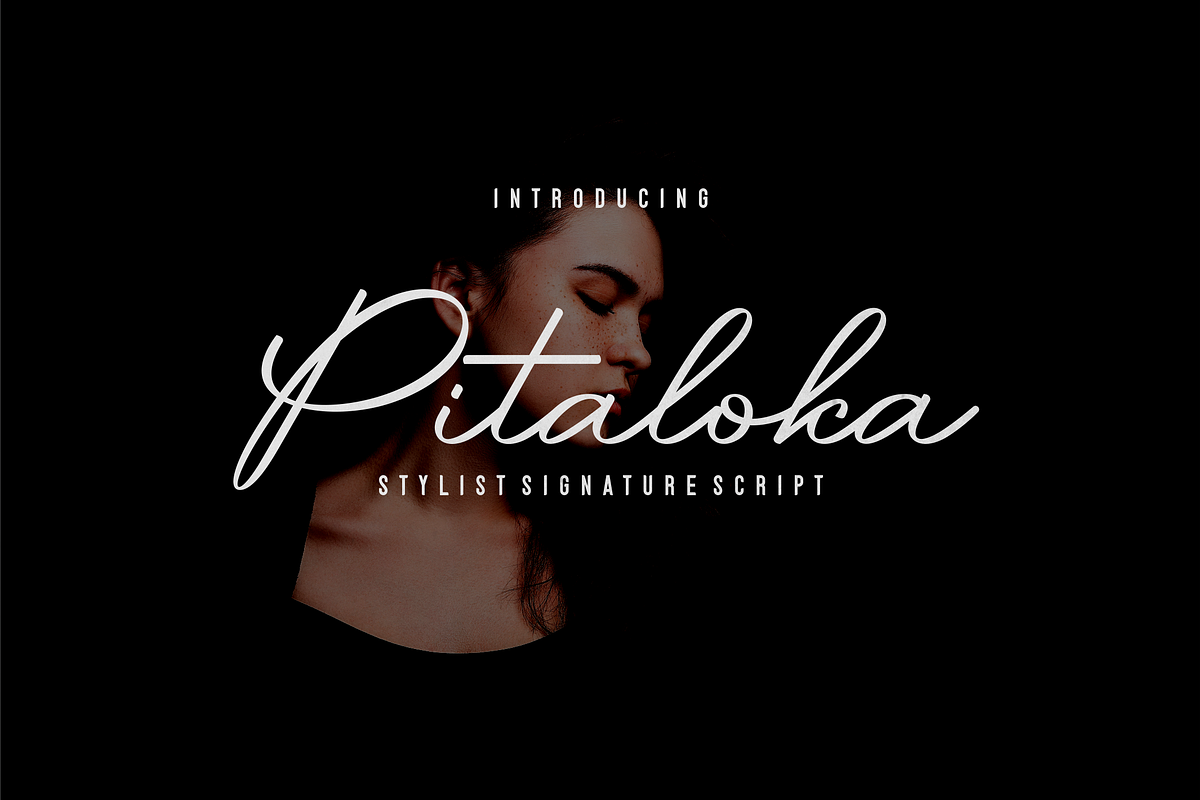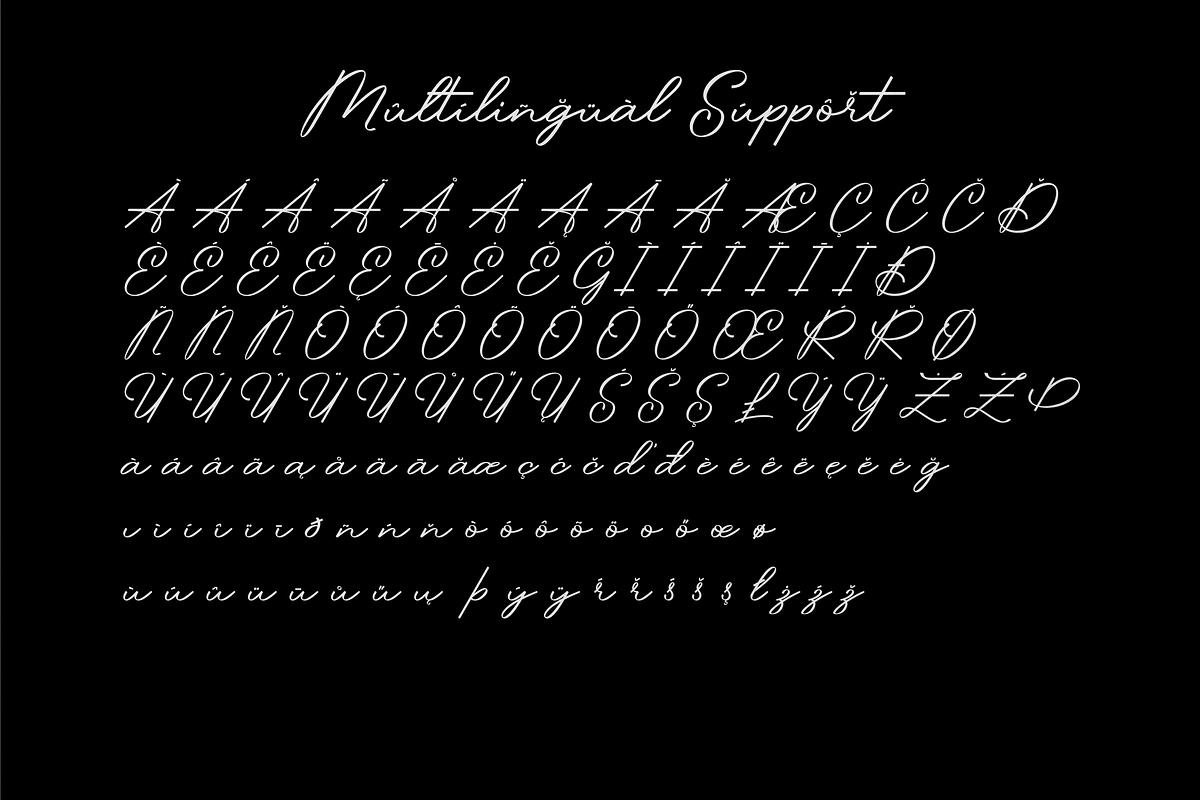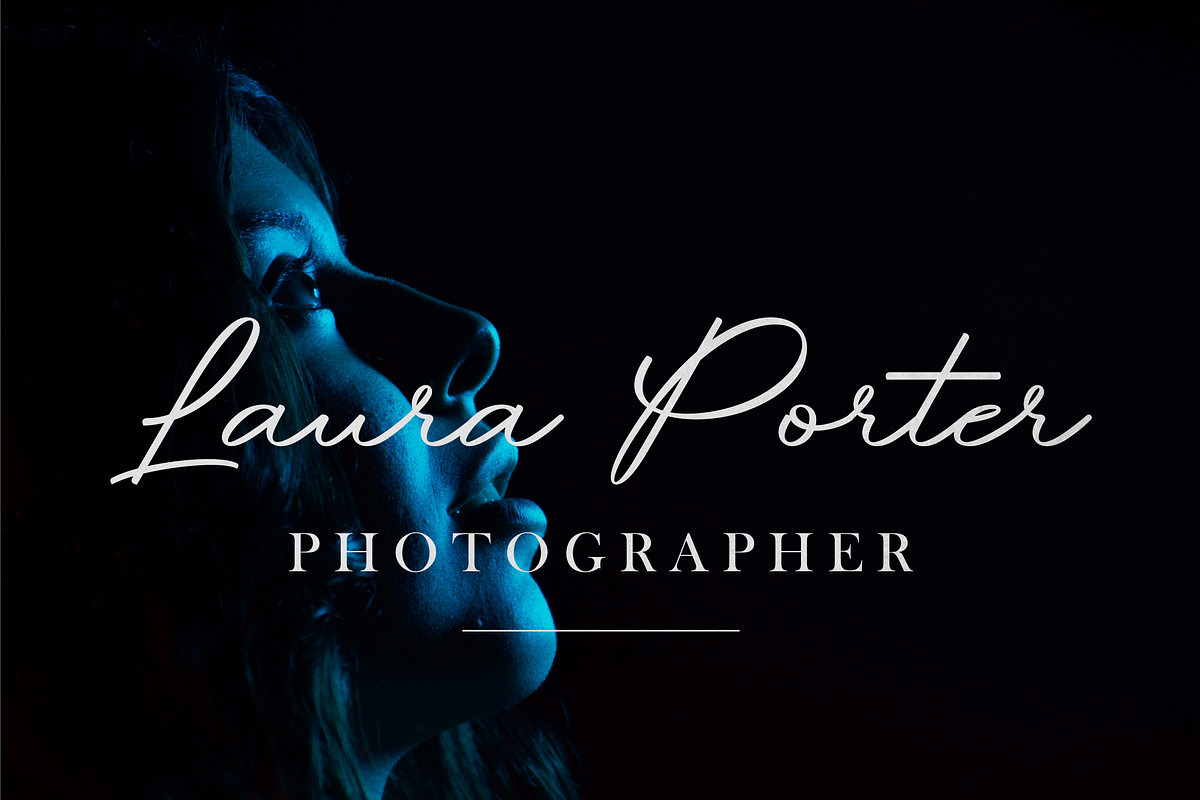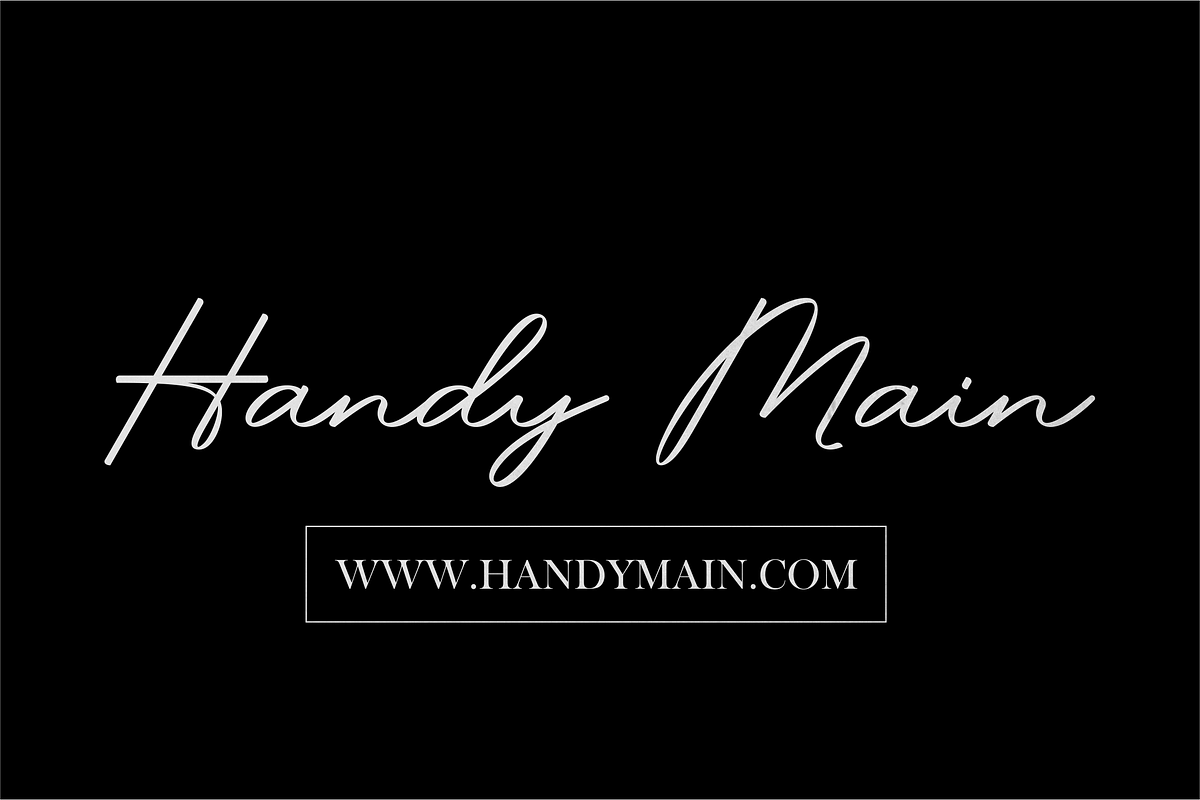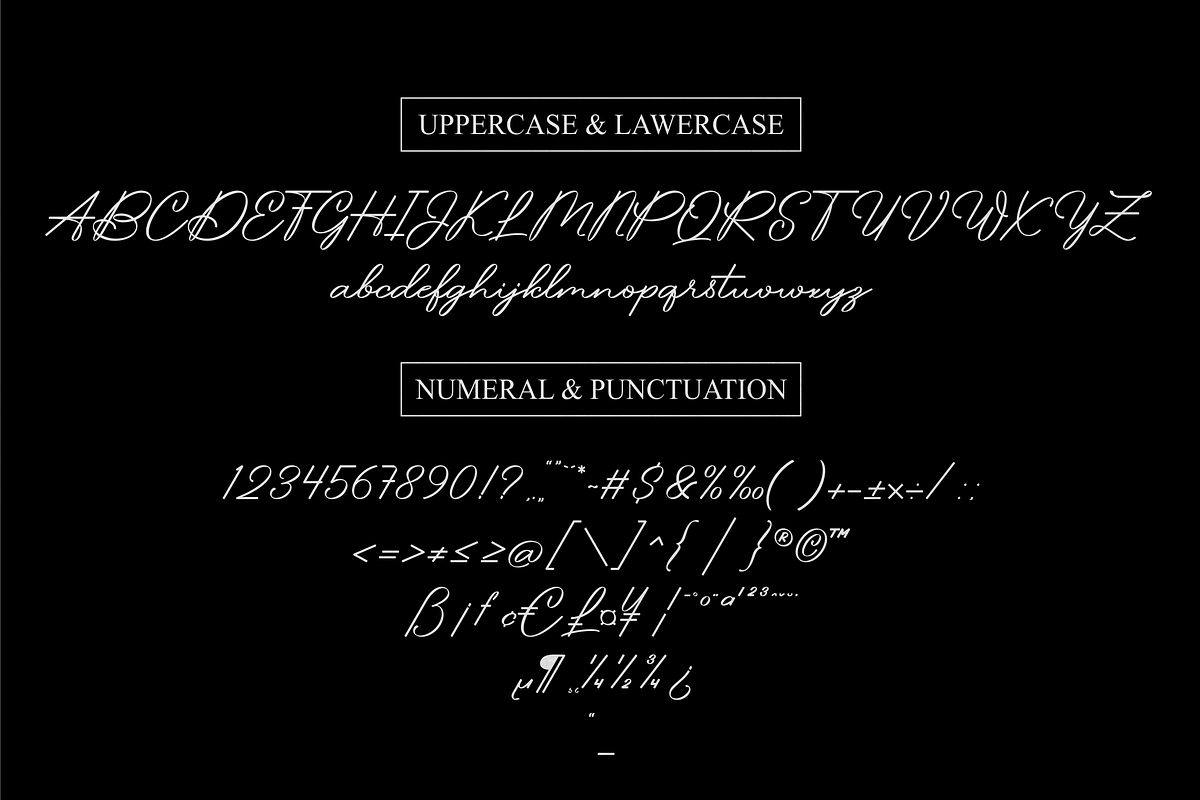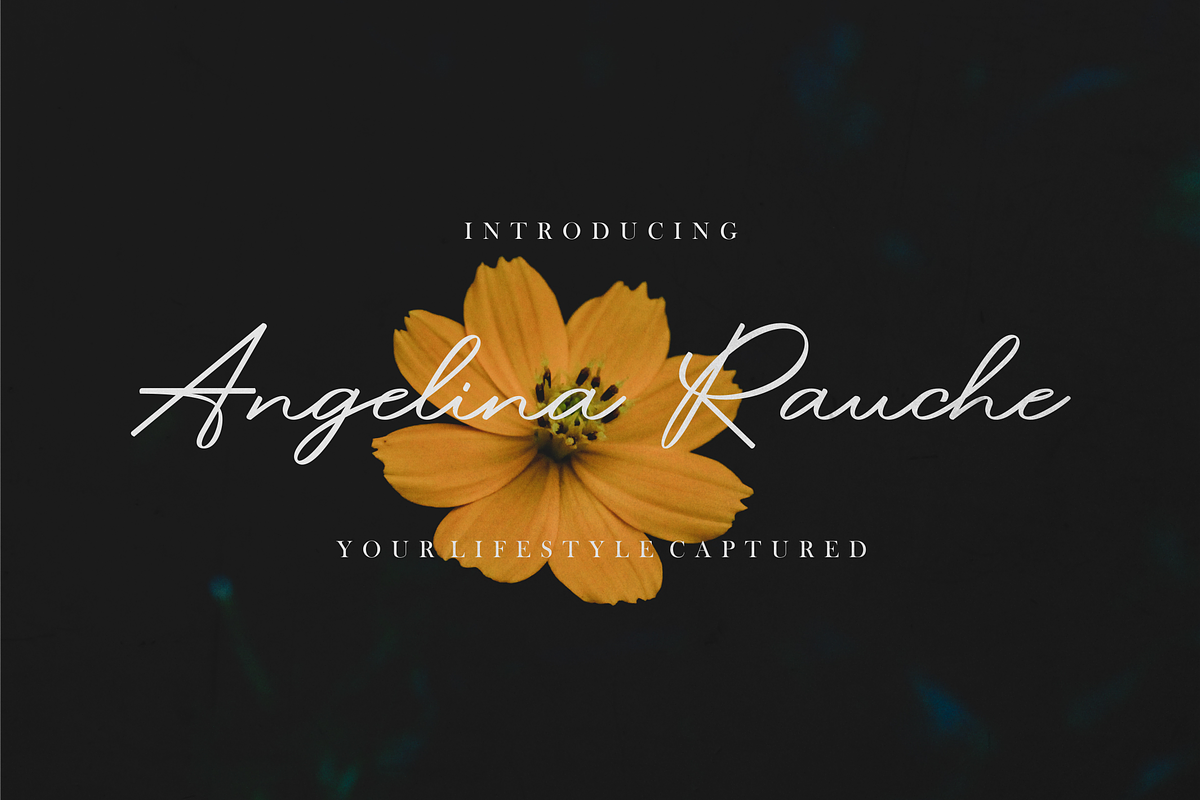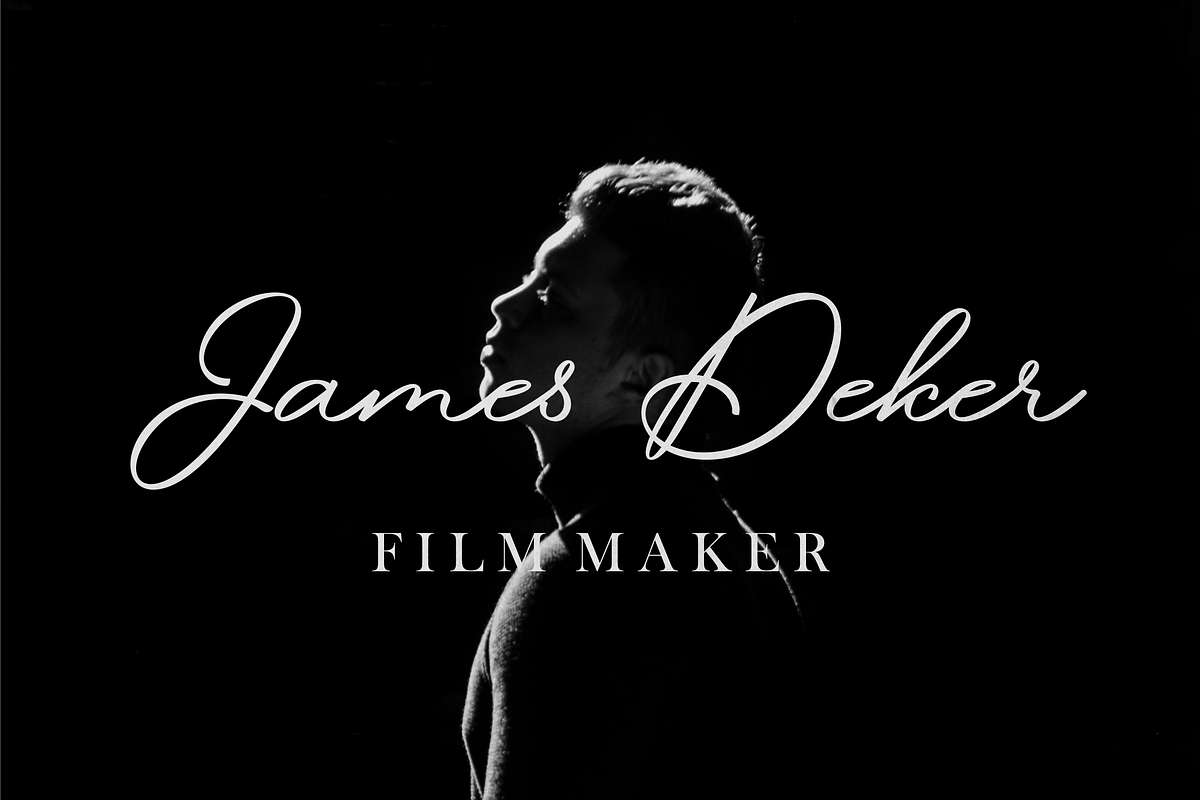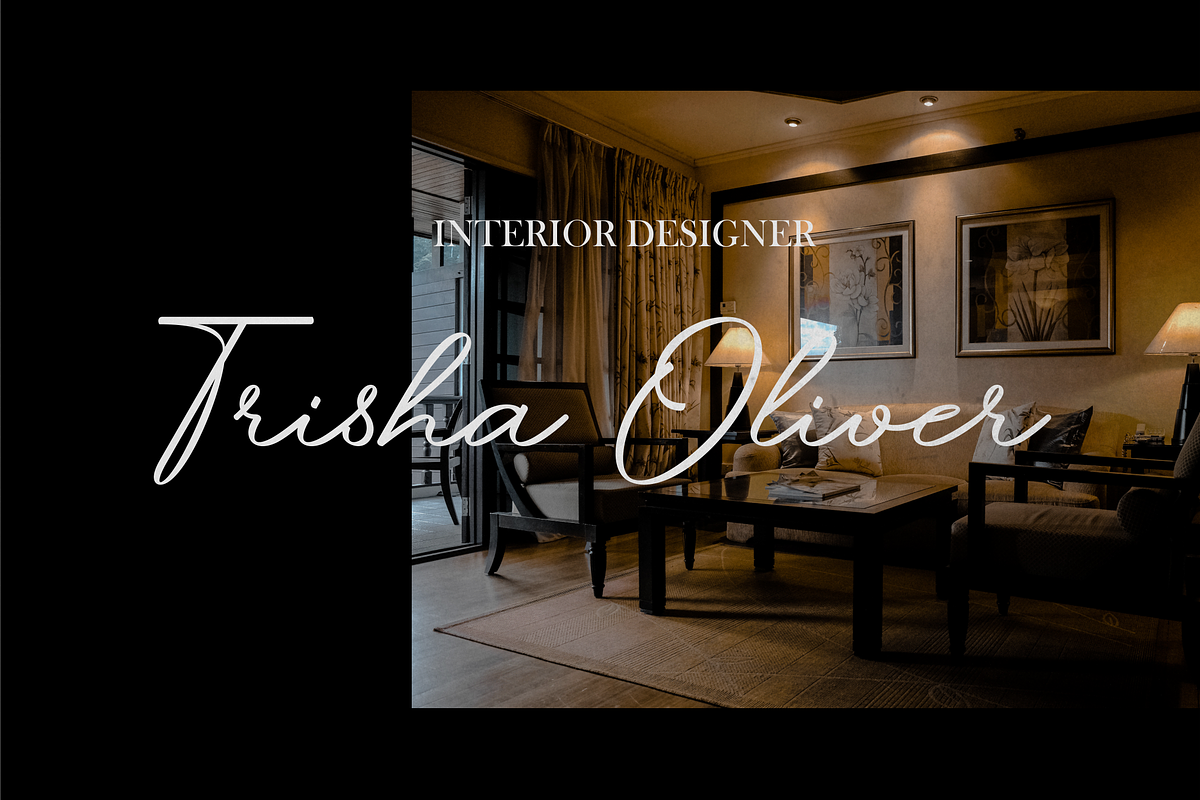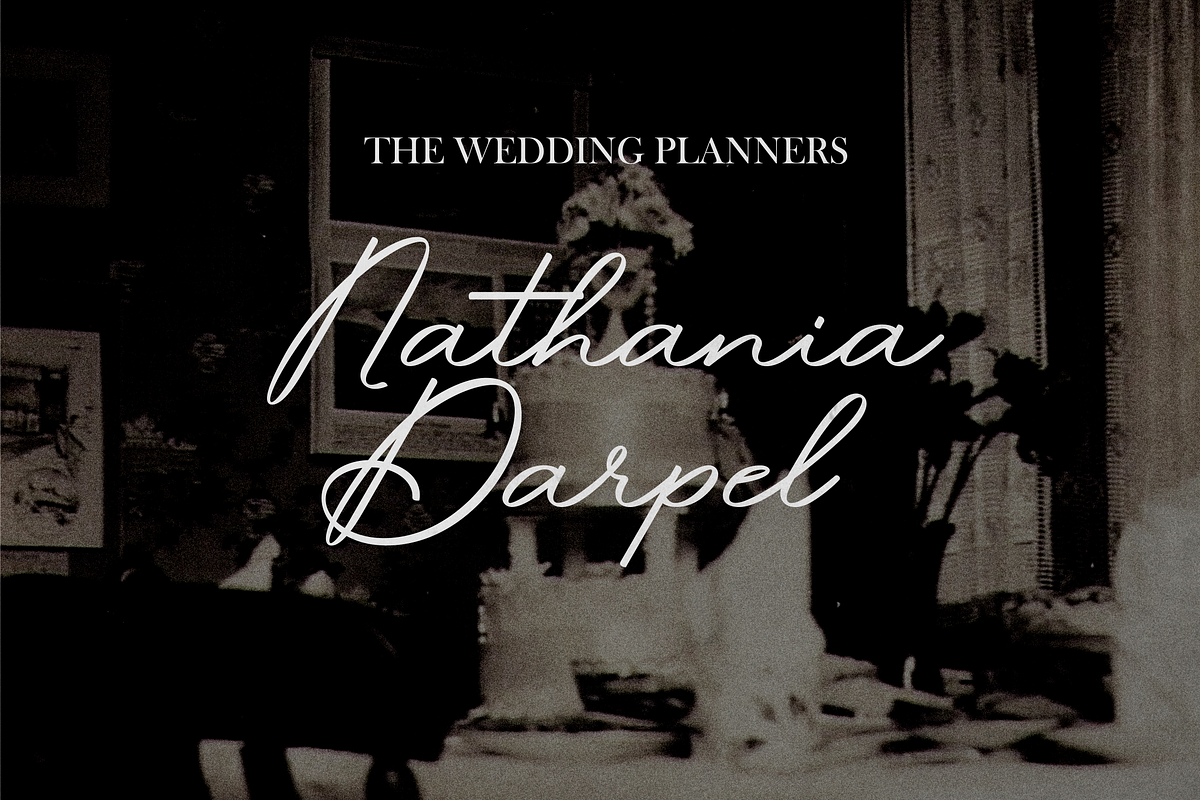
Pitaloka Stylish Signature Font
Introducing Pitaloka a signature font that's suitable elegant branding, wedding stationery, romantic book cover designs, classy packaging, album covers, handwritten quotes, greeting cards, unique social media posts and more.
- Basic Latin A-Z and a-z
- Numbers
- Symbols
- Multilanguage Support